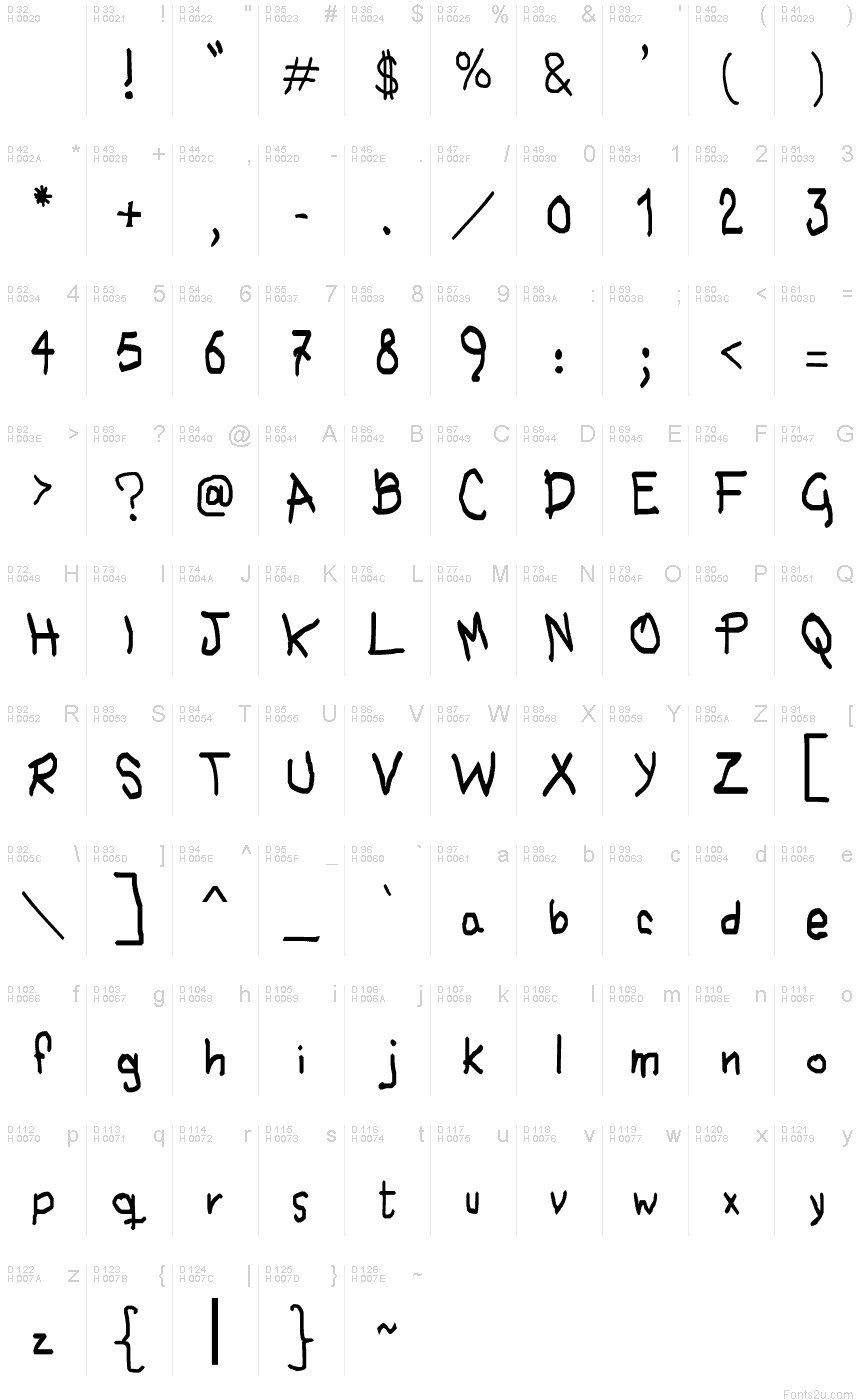
No hubo más Tiempo, designed by Juan Casco, is a free handwritten display font with the quick, uneven strokes of lettering drawn in a thick marker. Sharp turns meet rounded forms, and the changing stroke widths give the letters a wiry, improvised silhouette that feels direct rather than polished.
Posters are an especially good medium for its restless shapes, particularly for independent music, comedy nights, and informal arts events. It can also give merchandise and food packaging the look of a hand-drawn label rather than a conventional typeset mark. The pointed strokes and loose contours can echo doodled figures or ink illustrations, letting the wording become part of the artwork.